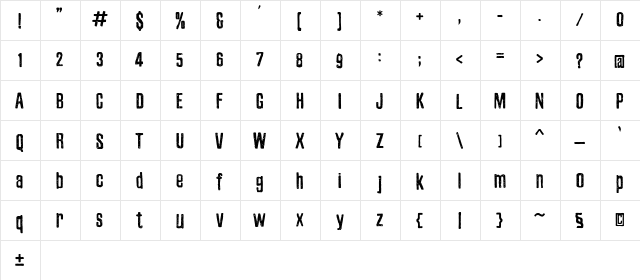
Zubajda Dt Regular
| Foundry | BFF |
| Designer | Bumbayo |
Design Context for Zubajda Dt Typeface
Zubajda Dt is a composed and adaptable typeface that performs quietly and consistently across a wide range of design contexts.